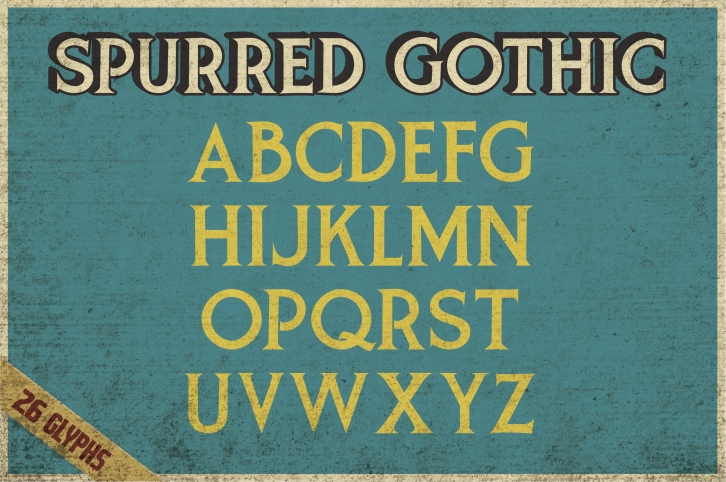
Spurred Gothic is an all-caps font based on the pen and brush typefaces of the 1940s. Suitable for headlines and display type.
Please note that this font does not include lowercase letters, numbers, punctuation, or special characters. There are only 26 characters in this font, which are all uppercase letters. Includes only OpenType (.OTF) and TrueType (.TTF) versions.